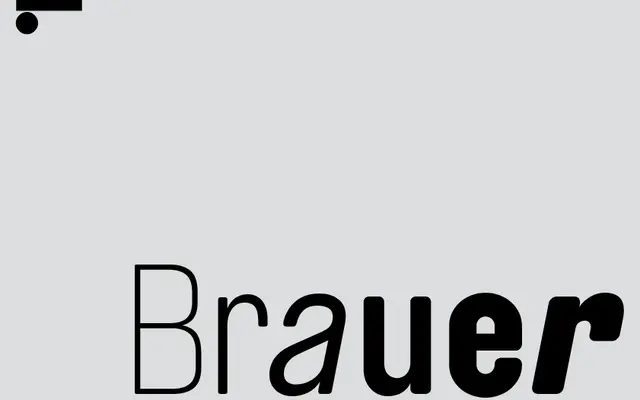
LL Brauer
Lineto · Pierre Miedinger, Philippe Desarzens, Marco Walser · 1999
A revival of the bespoke branding typeface drawn by Pierre Miedinger for the Zürich Hürlimann brewery, resurrected from ink drawings after the brewery closed in 1997.
Originally drawn by Pierre Miedinger, nephew of Helvetica designer Max Miedinger, as the corporate face of Hürlimann brewery, the design appeared on everything from bottle labels to street posters before disappearing when Carlsberg acquired and shuttered the company. Elektrosmog revived it in 1999 for an arts festival on the former brewery site, later extended with additional weights by Philippe Desarzens and Marco Walser across two decades of incremental development. The full family of six weights, from Thin to Extra Bold, was released by Lineto in 2019, accompanied by a bonus set of the brewery's phased-out brand logos.
Derived from a bespoke brewery branding typeface drawn by Pierre Miedinger, it functions as a display-weight sans with strong headline character and minimal text application.